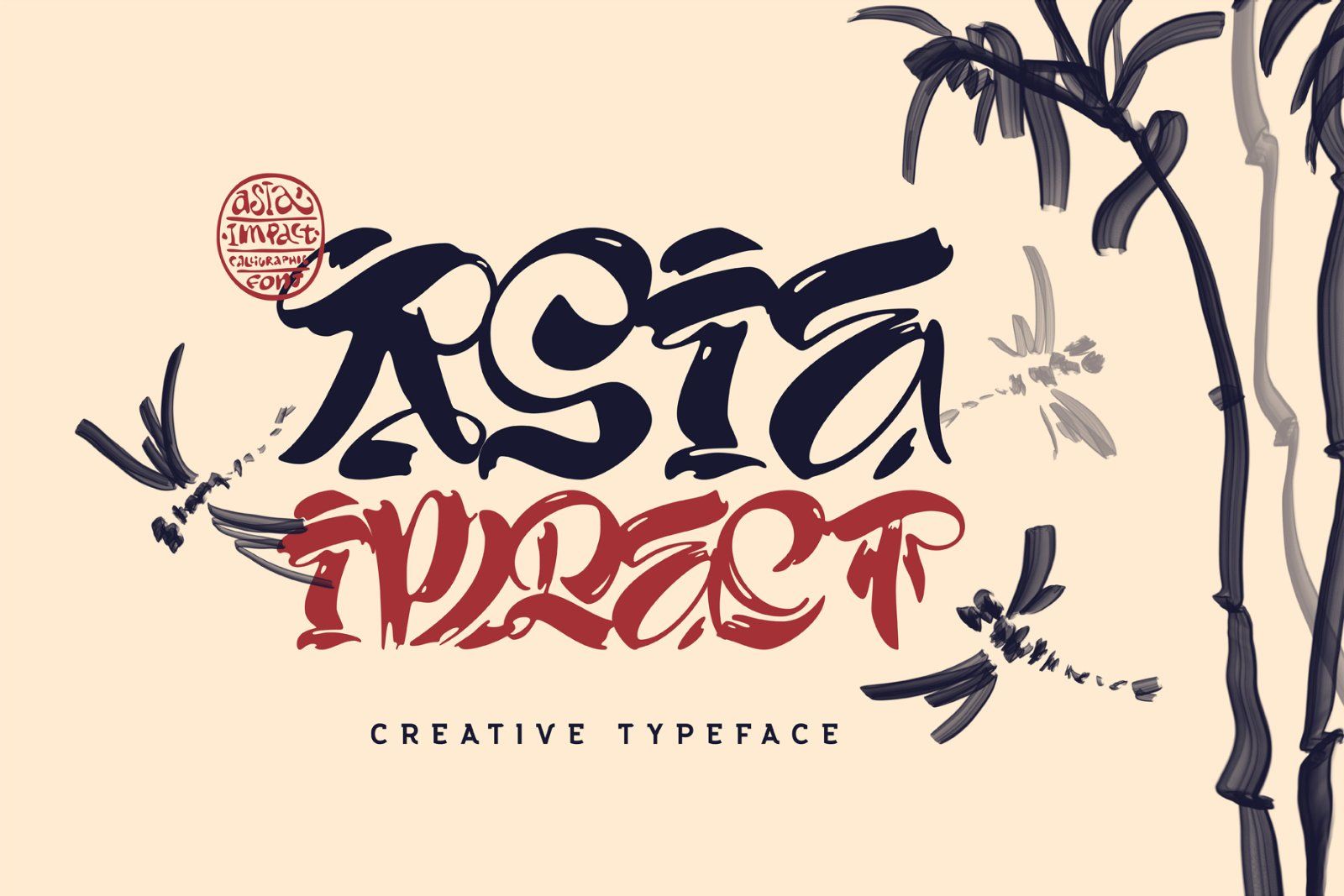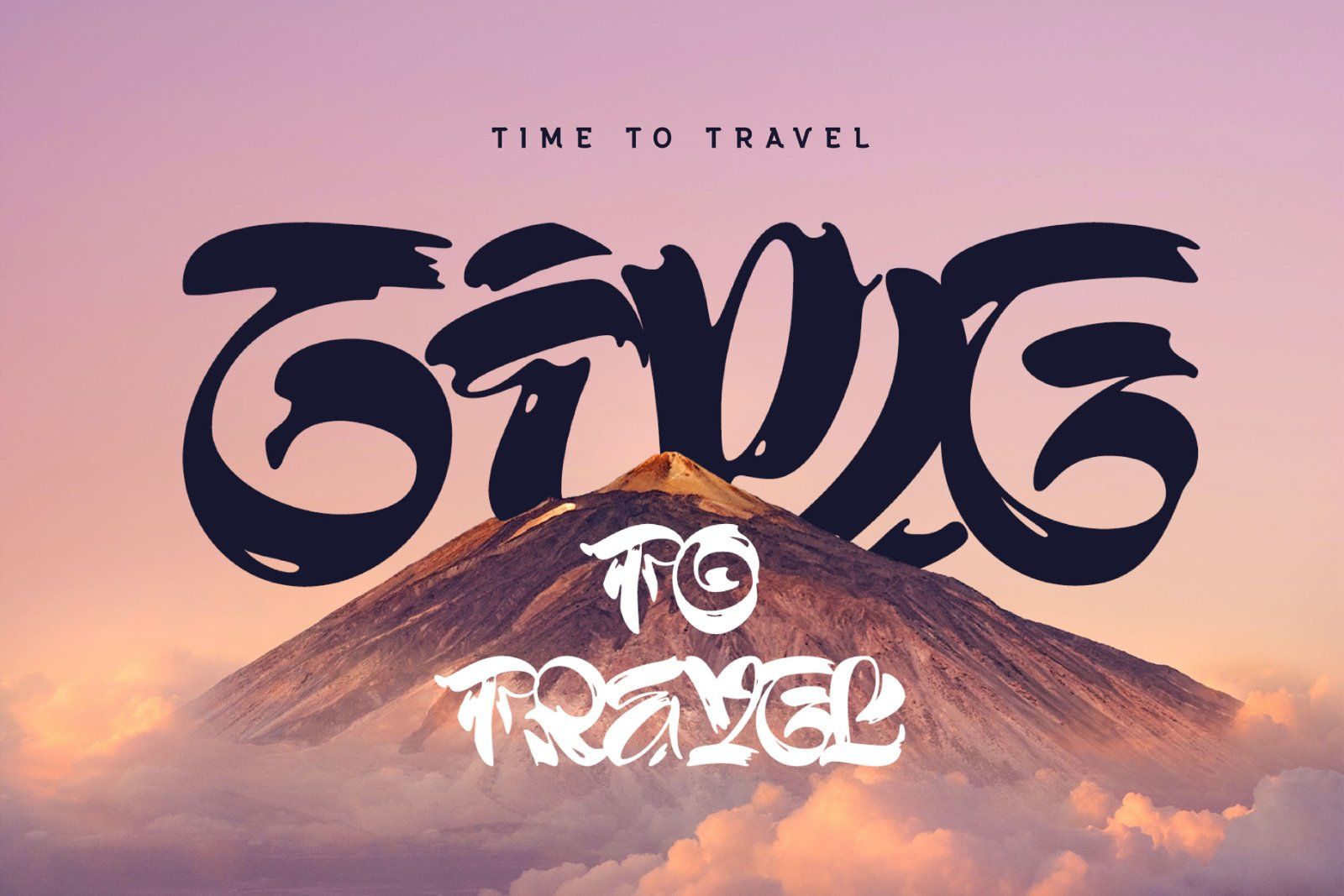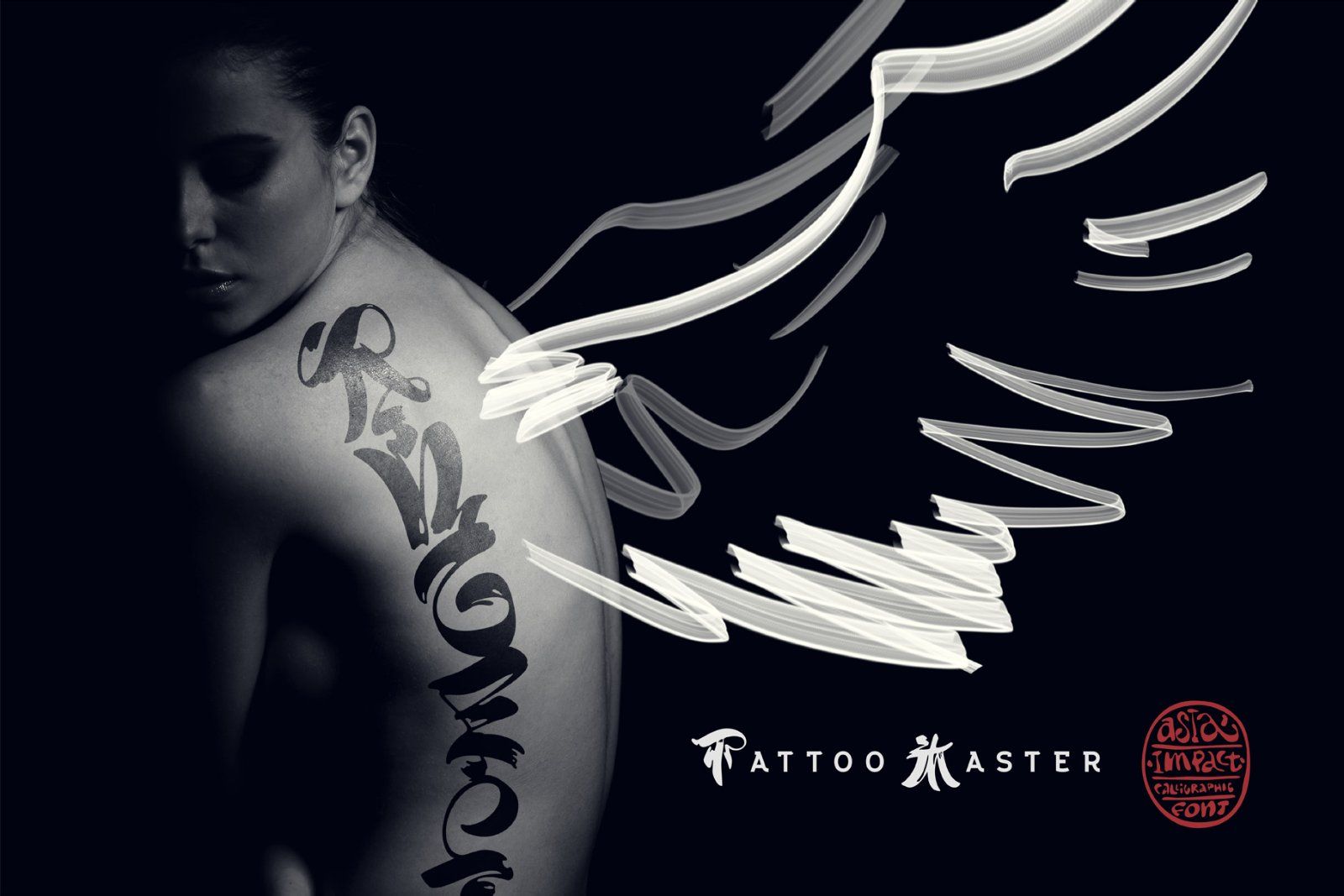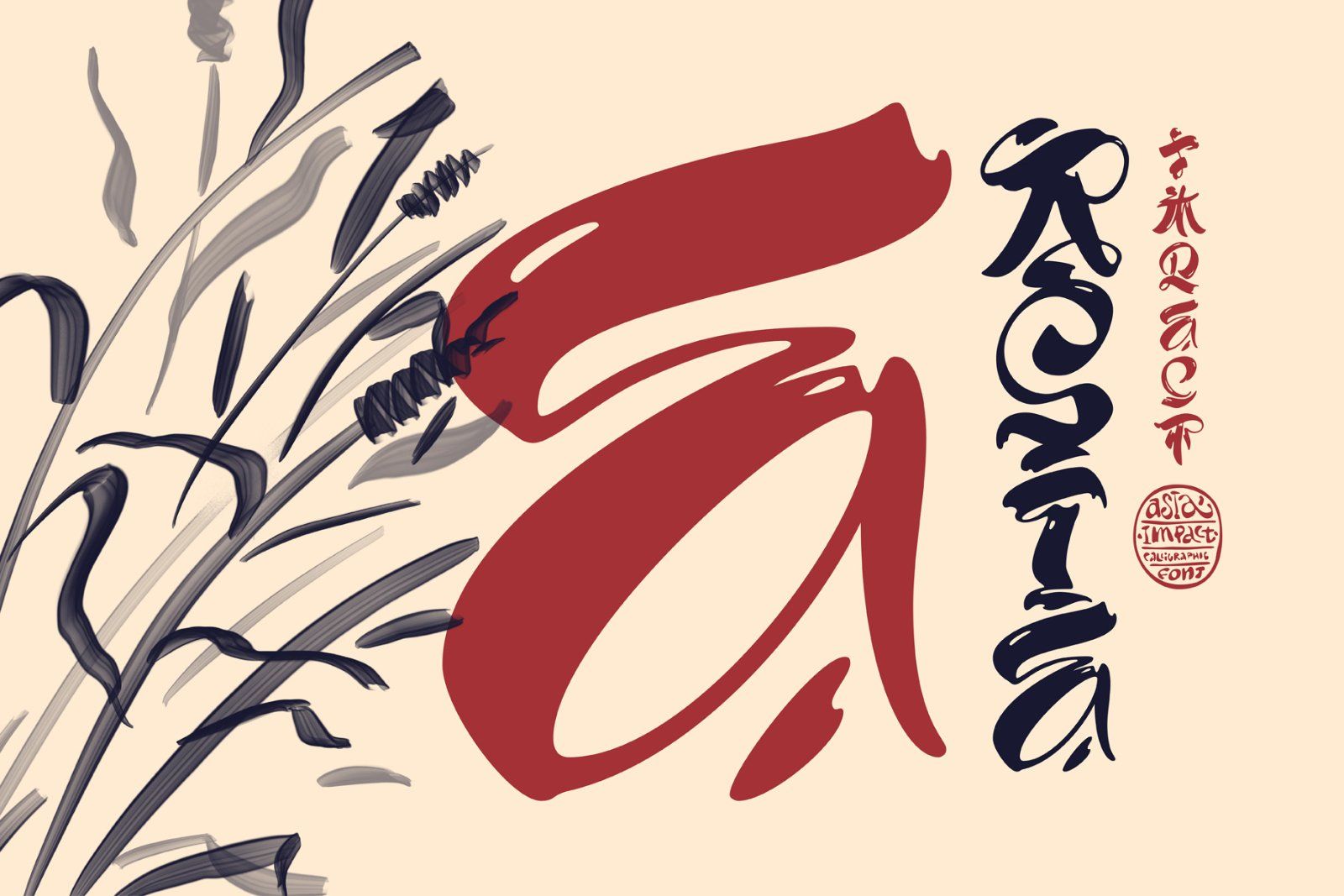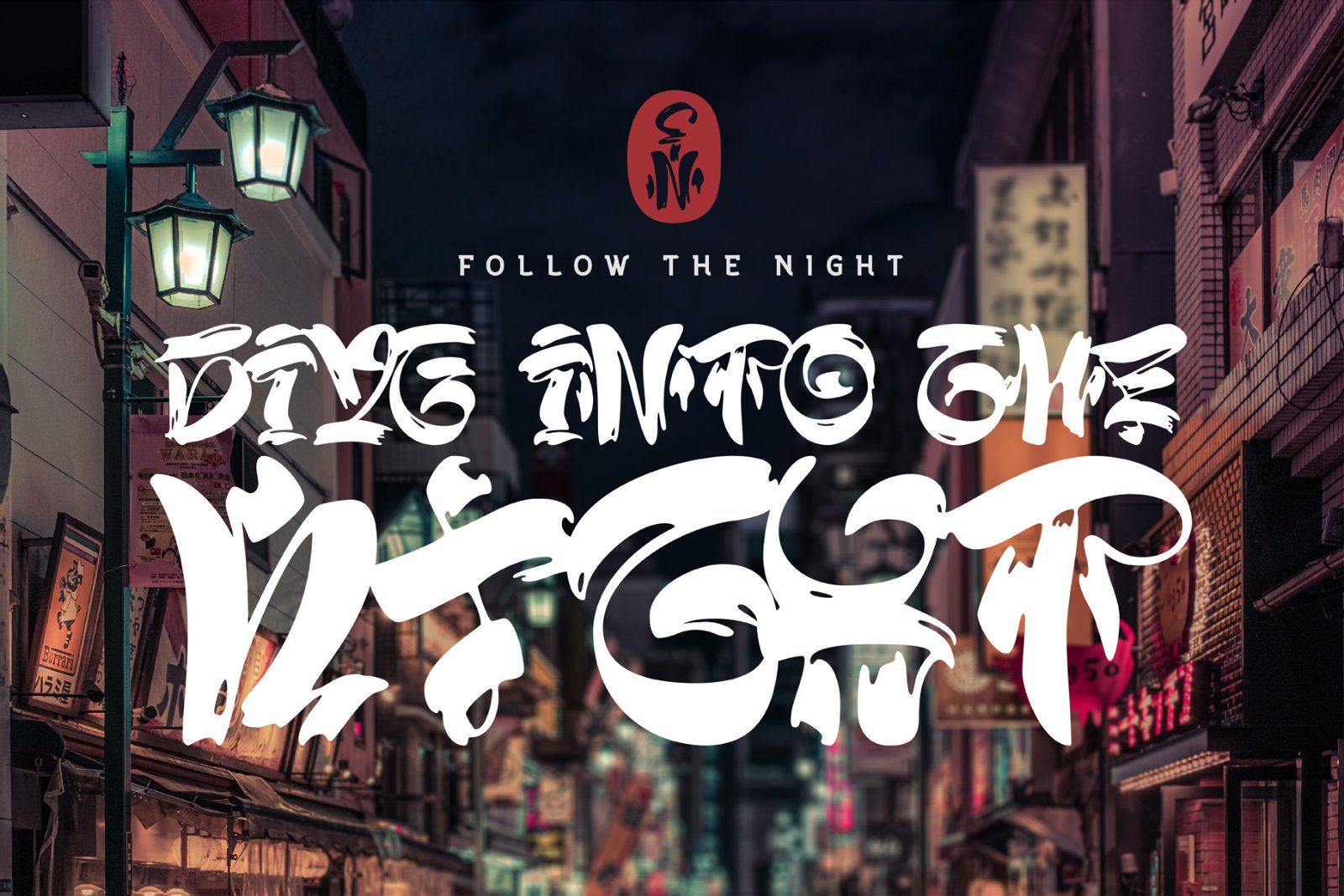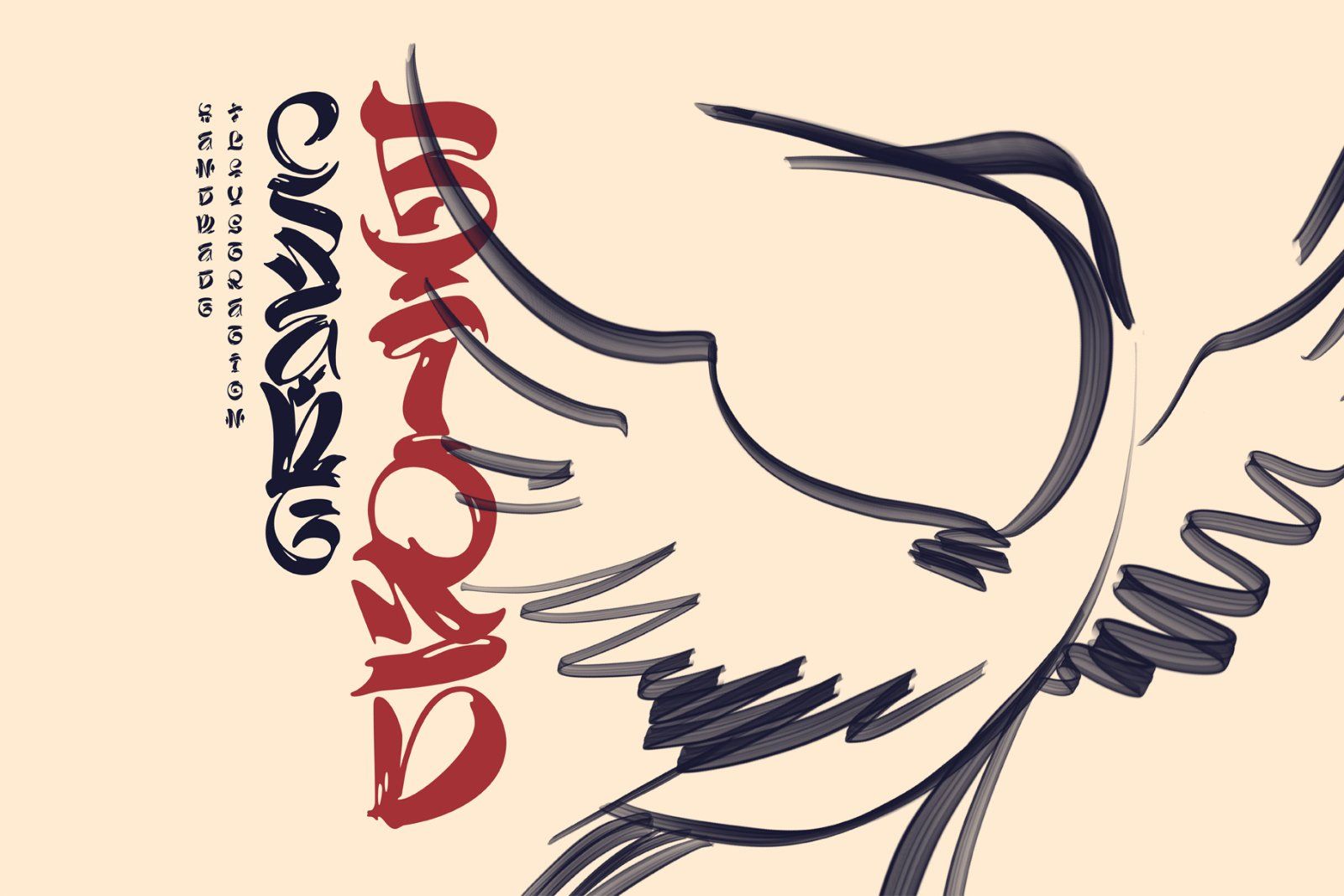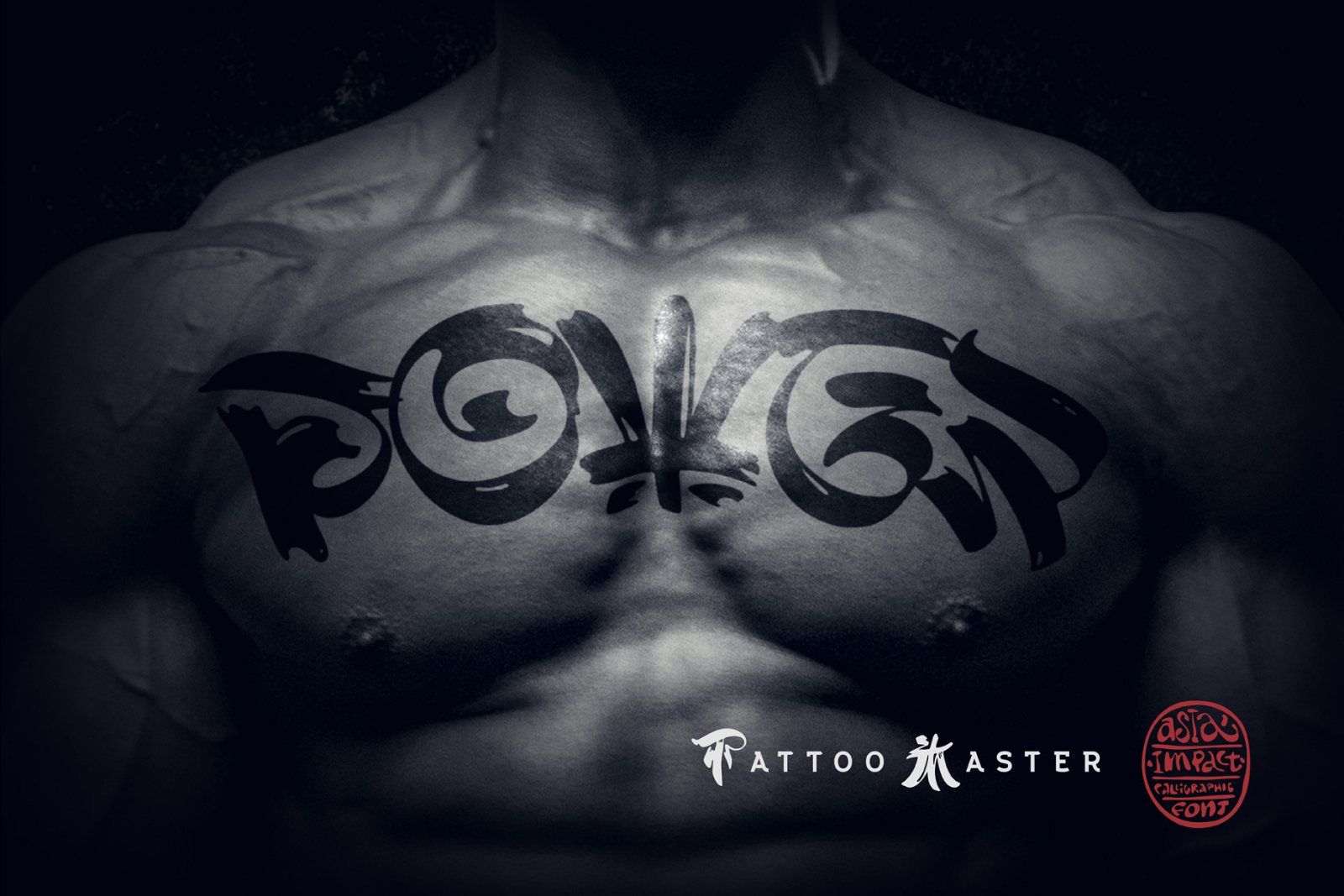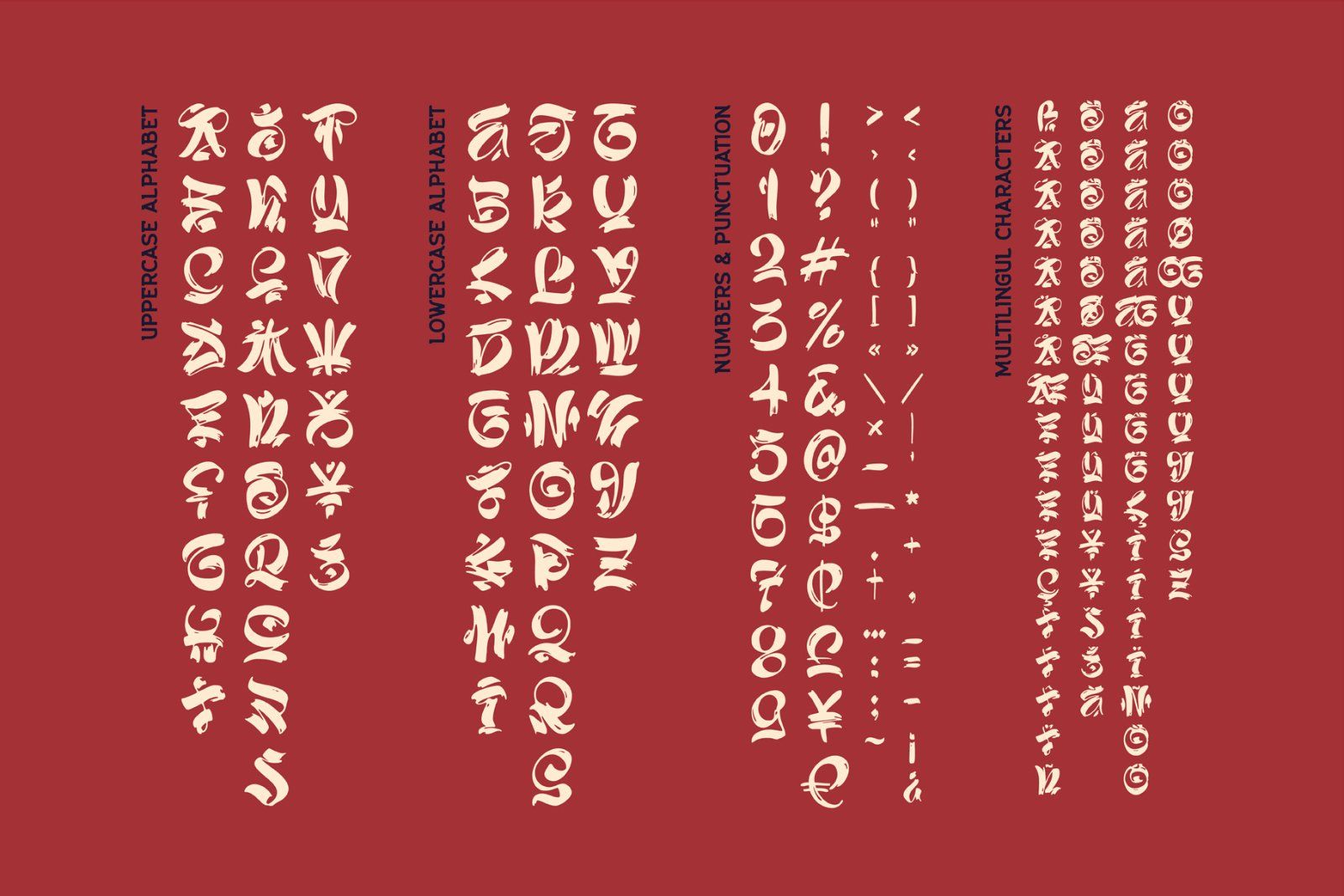
Introducing a conceptual script font Asia Impact. It's a brush handwritten typeface inspired by Asian traditional calligraphy. Each letter has two shapes versions for uppercase and lowercase characters. It works both in horizontal and vertical orientation. Asia Impact is perfect for tattoo design and authentic eastern lettering. Also 3 handcrafted drawings of a crane bird, bamboo with dragonflies and reeds is included in PSD and PNG formats.